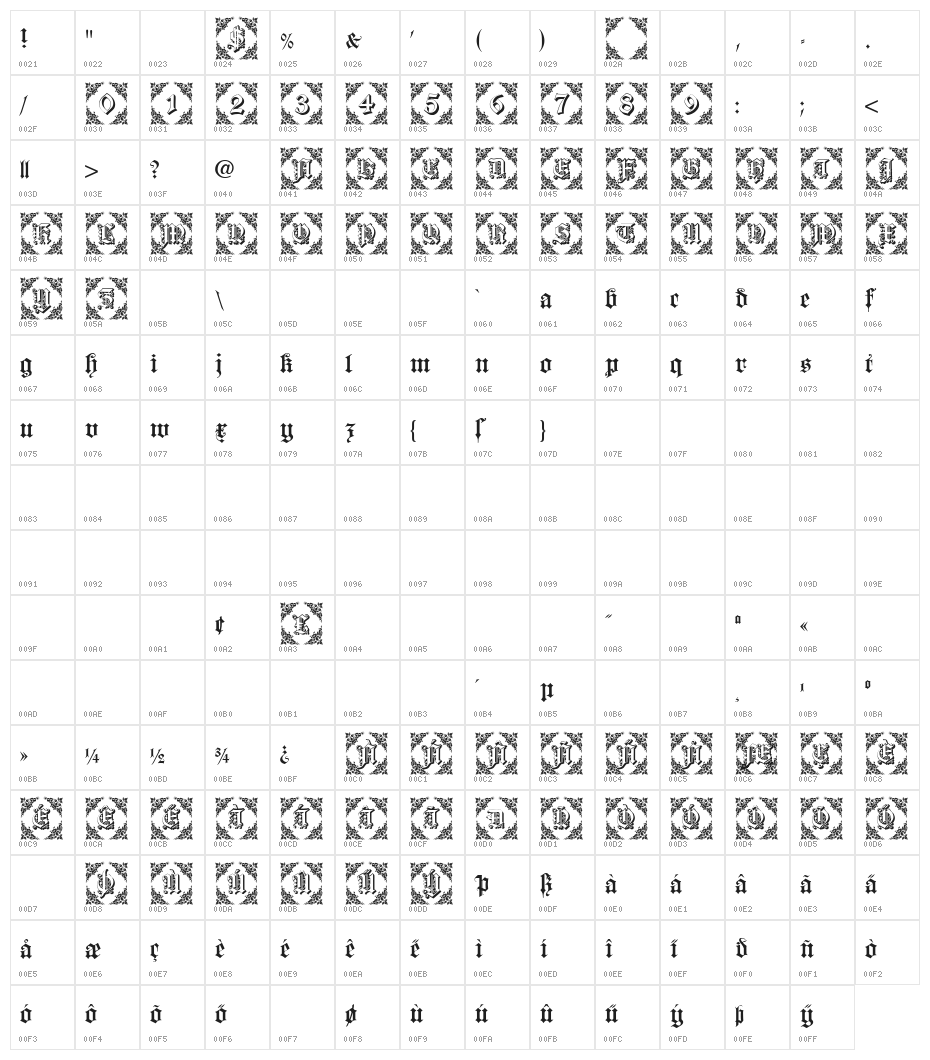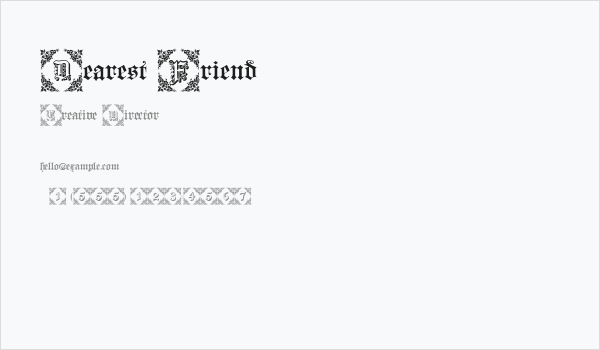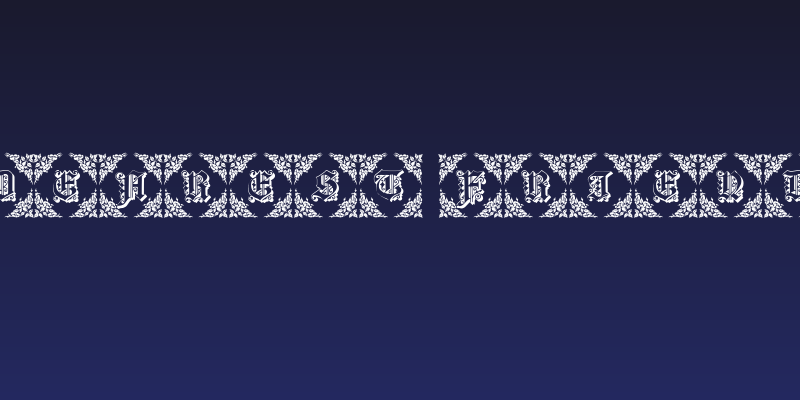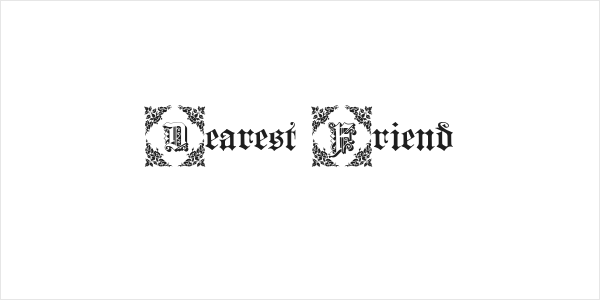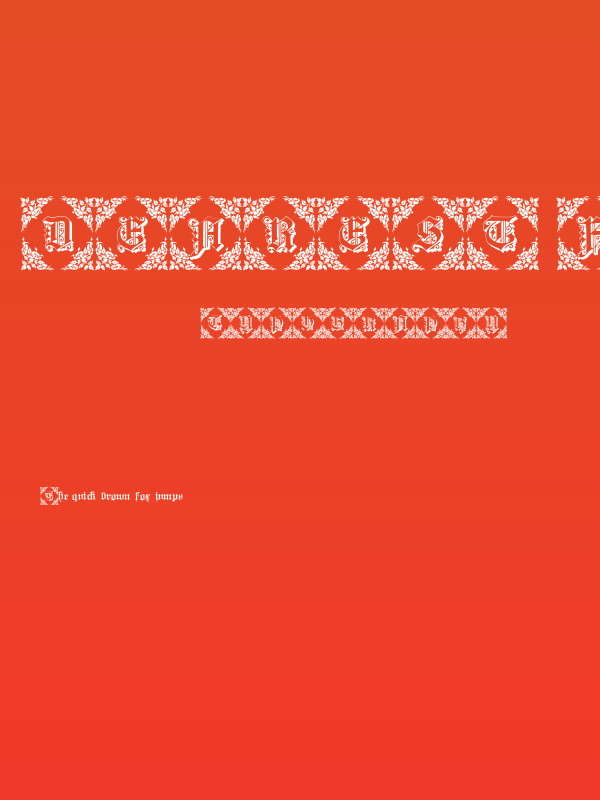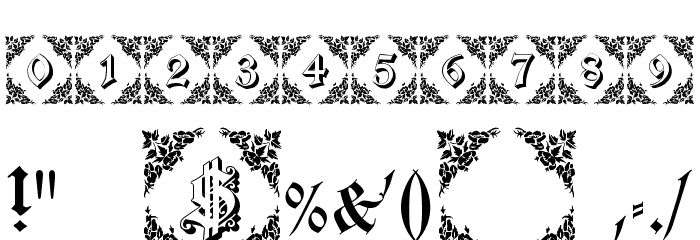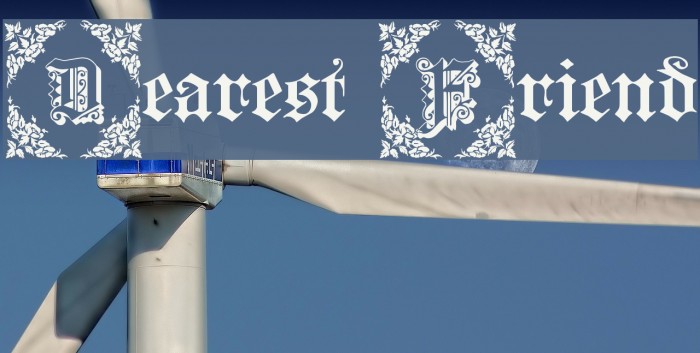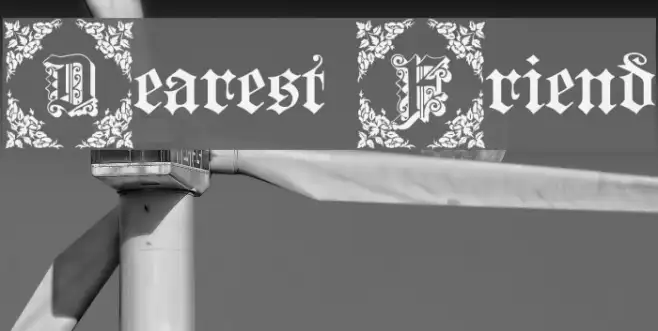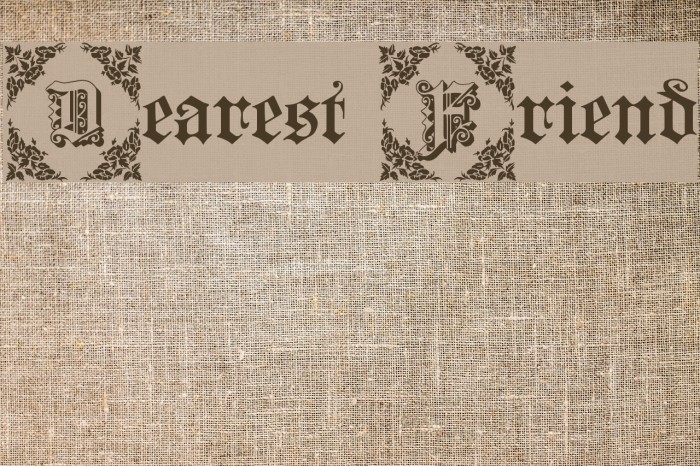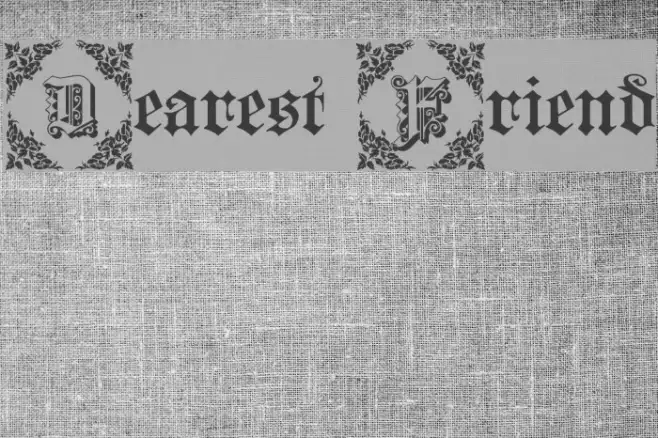
Dearest Friend Font
Dearest Friend Description
This font features an intricate and ornate design, reminiscent of traditional blackletter styles. Each character is adorned with elaborate flourishes and sharp, angular strokes, creating a sense of historical elegance and formality. The uppercase letters are particularly decorative, with embellishments that extend beyond the basic letterforms. The lowercase letters maintain the same level of detail, ensuring consistency throughout the typeface. Numbers and special characters are equally ornate, making this font suitable for projects that require a touch of sophistication and grandeur. The overall appearance is bold and striking, capturing the essence of medieval script with a modern twist.
| Overall Style | Vintage |
| Use Case | Headlines, Logos, Decorative purposes |
| Proposed Projects | Ideal for wedding invitations, historical documents, certificates, and branding that requires a classic and elegant touch. |